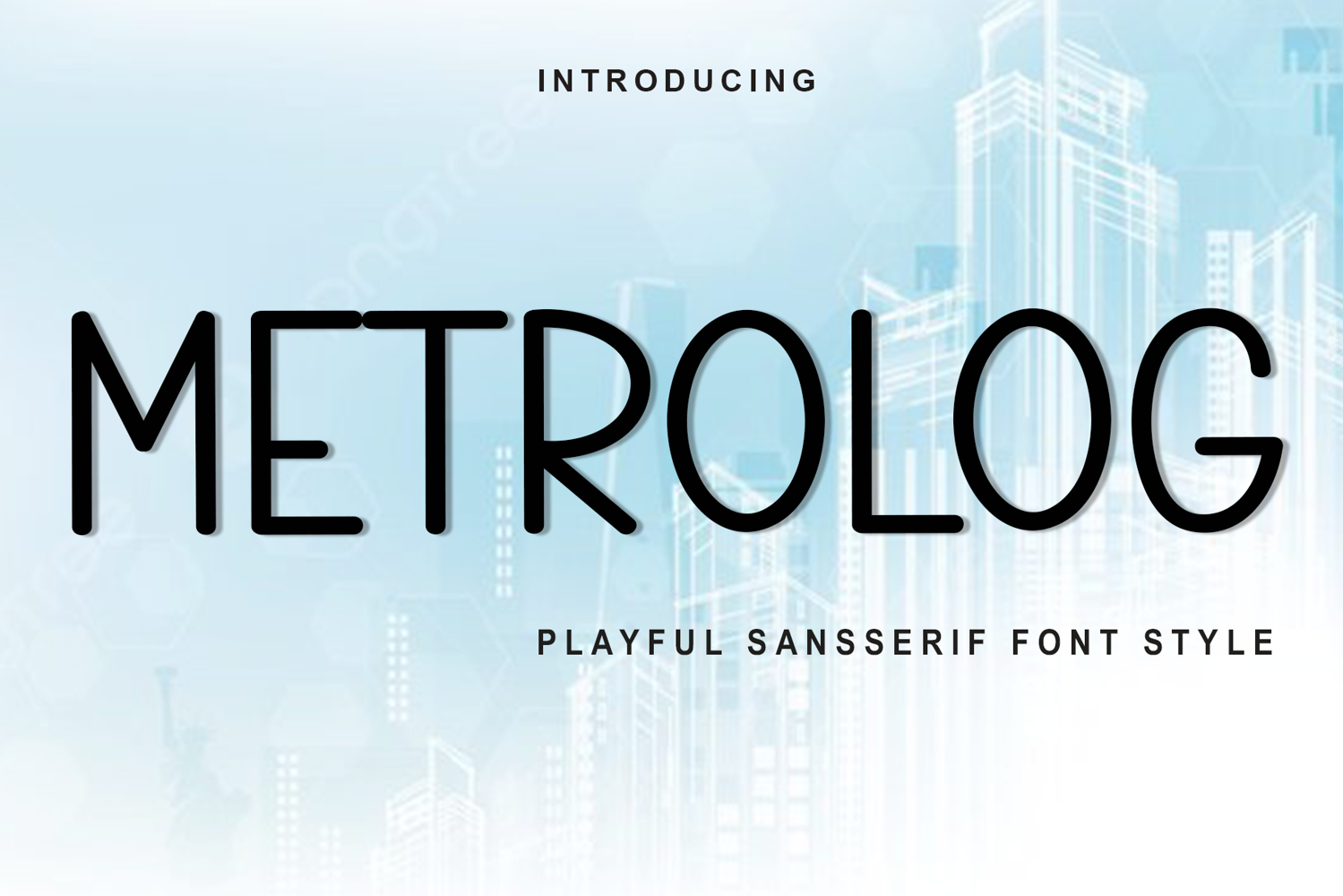
Metrolog
Metrolog is a beautiful and eye-catching font designed with a soft, unique touch. Its distinctive strokes give it a special character, making it meaningful and versatile for future use. With various characters, it’s perfect for design projects, crafts, and other creative works.